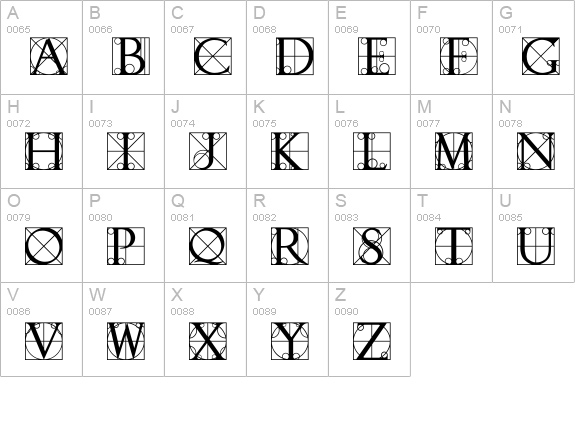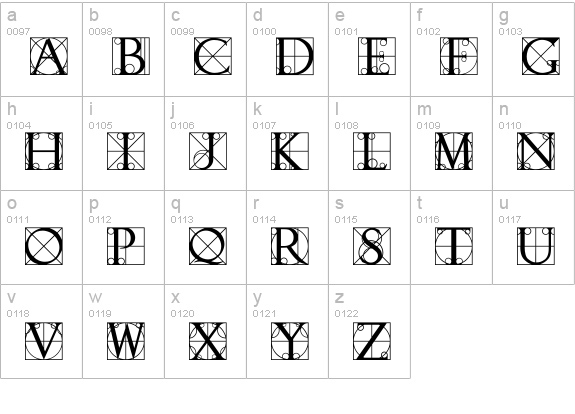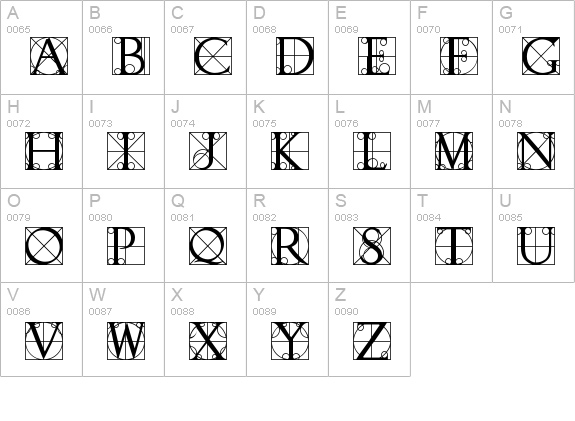
Quovadis Font Details
Quovadis font is a stunning typeface that exudes elegance and sophistication. With its sleek lines and graceful curves, this font is perfect for adding a touch of refinement to any design project. Whether you're creating wedding invitations, business cards, or social media graphics, Quovadis font is sure to make a statement. What's even better is that Quovadis font is completely free to download at FontsMarket.com. That's right, you can elevate your designs with this beautiful font without spending a dime. So why wait? Head over to FontsMarket.com now and download Quovadis font to add a touch of class to your next project.